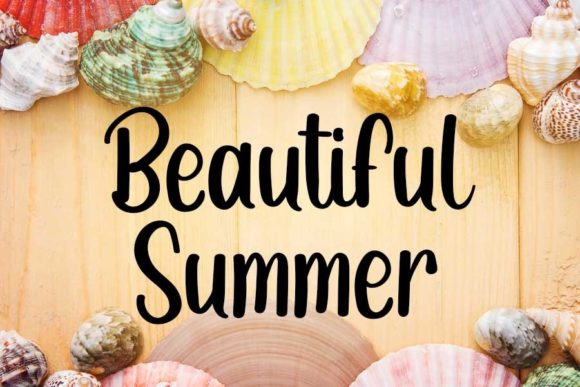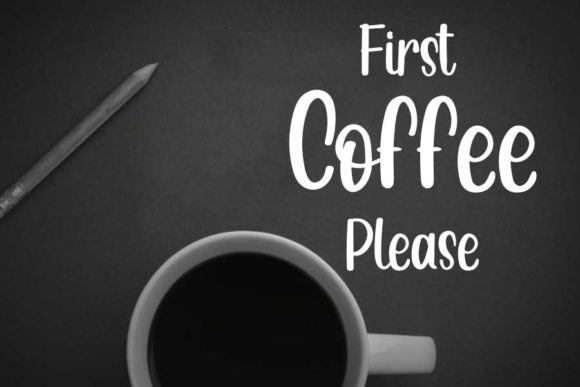
Beauty Butterfly Font
db-ku.com - Script & Handwritten -- Beauty Butterfly is a sweet and relaxed handwritten font. Its natural and unique style makes it incredibly fitting to a large pool of designs. Fall in love with it and bring your projects to the highest levels!